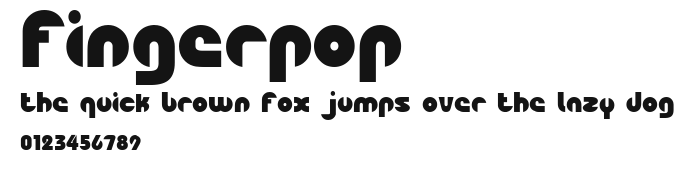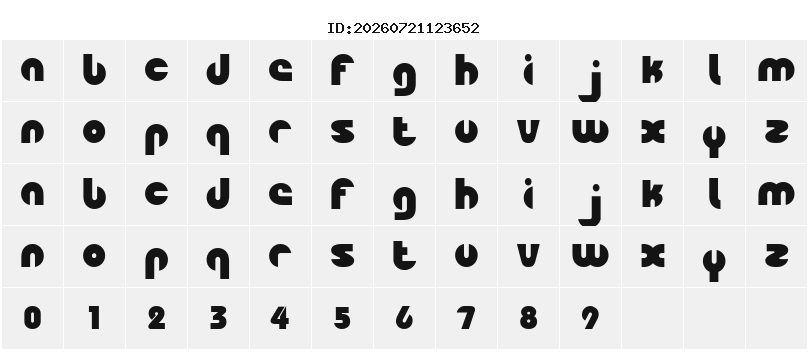
• Font Name: Fingerpop
Fingerpop.ttf is a modern, elegant sans-serif font designed for ultimate readability and visual harmony. Perfect for branding, headlines, web design, and print materials.